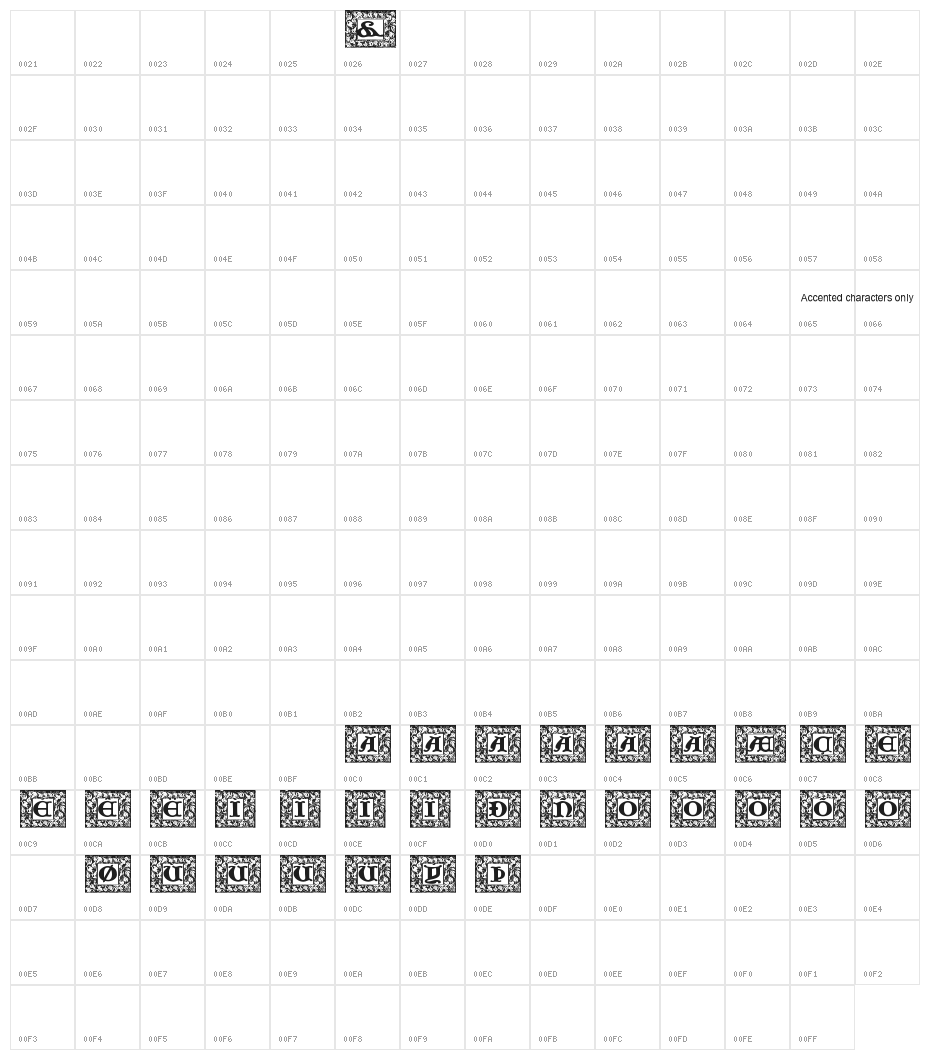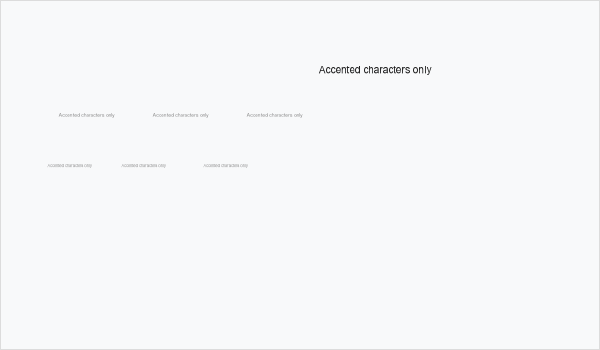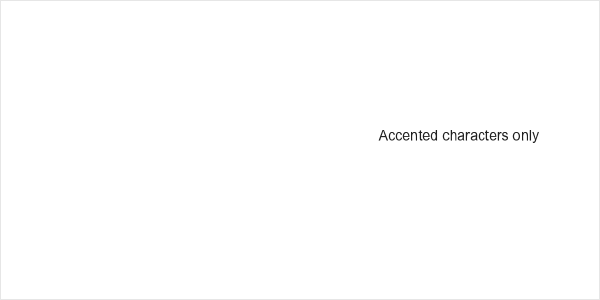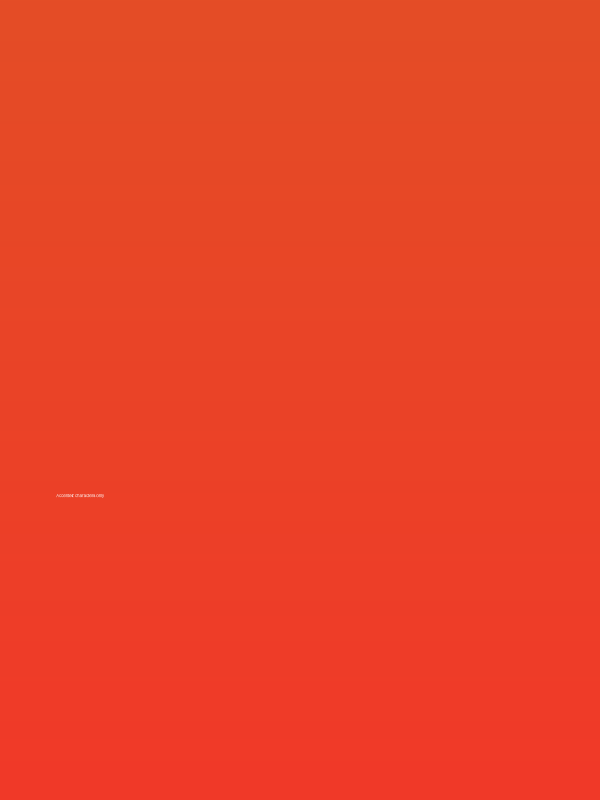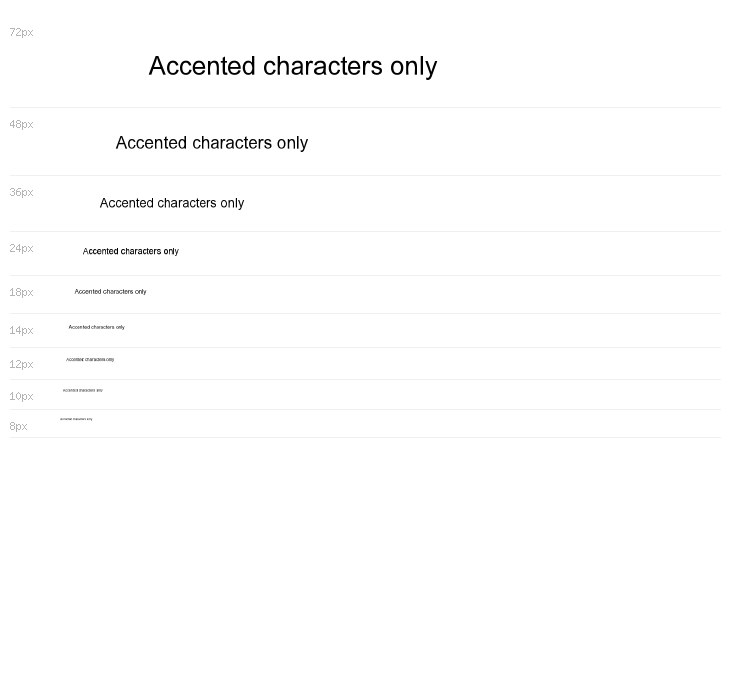
JF Cotswold Accents Font
JF Cotswold Accents Description
Decorative font with intricate floral patterns surrounding the ampersand character.
| Use Case | Logos, Decorative elements |
| Proposed Projects | Artistic projects, invitations, decorative headings. |